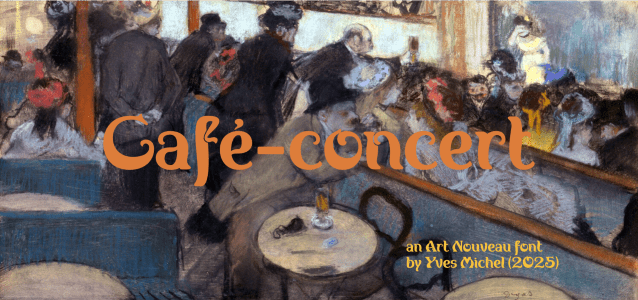
Café-concert Font – This font is inspired by — and digitized from — an exercise in penmanship from “The Zanerian Manual of Alphabets and Engrossing”, a book itself digitized by David Grimes (https://masgrimes.com/)
The uppercase letters are quite faithfully rendered, the rest — lowercase, figures, punctuation and symbols — are my creation.
The French Café-concert — also named “Café chantant” was a type of musical establishment, equivalent to the English “music-hall”. The Golden age of the “caf’conc'” is round 1900, the “Belle Époque”, also the time of the flowering of Art Nouveau, which this font tries to illustrate.
Café-concert Font